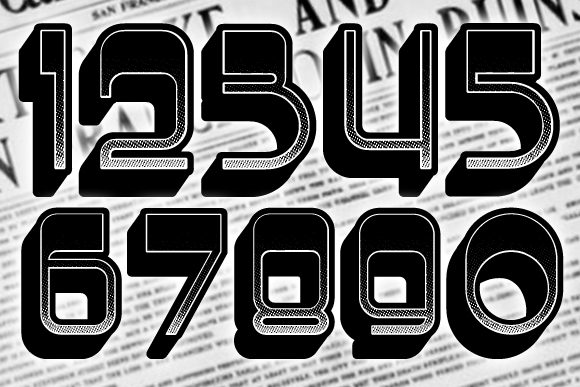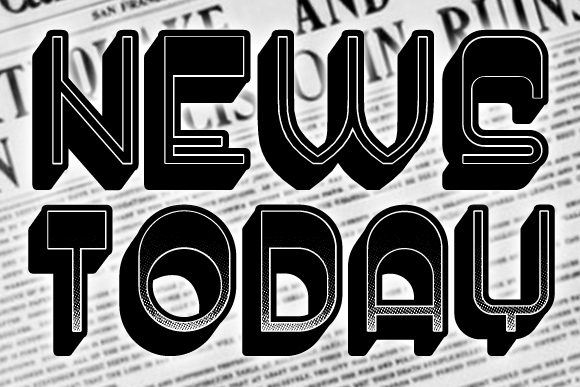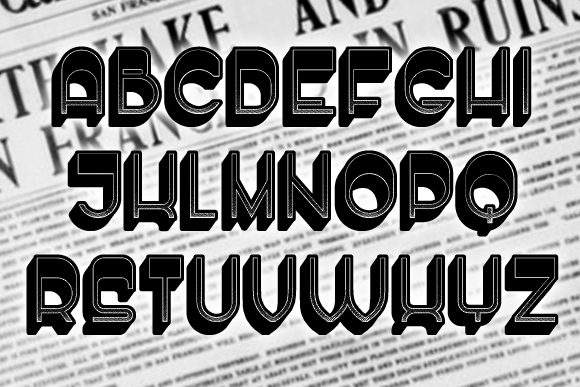
The Retro Charm of Enough Font: A Designer’s Delight
I’ll never forget the time I was working on a vintage-themed project for a client, and I just couldn’t find the right font to capture the essence of the ’50s and ’60s. I scoured the internet, tried out countless fonts, but nothing seemed quite right. That was until I stumbled upon the Enough Font family. It was like a breath of fresh air – the perfect blend of retro charm and modern versatility.
A Honest Review: The Good and the Great
Here’s what I love about Enough Font:
- ✨ Distinctive retro look that’s perfect for evoking the iconic aesthetics of the ’50s and ’60s
- ✅ Great for both headlines and body text
- ✨ Beautifully crafted with attention to detail
And, like any font, it’s not without its quirks:
- 🤔 Some users might find the font a bit too condensed for certain design applications
- ⚠️ Limited availability of certain special characters
The Story Behind Enough Font
Enough Font was designed with the goal of capturing the essence of retro typography. The designer, inspired by the iconic fonts of the ’50s and ’60s, set out to create a font that would evoke a sense of nostalgia and playfulness. The result is a font that’s both vintage and modern, perfect for designers looking to add a touch of retro charm to their work.
| Font Name | Enough Font |
| Author | vladimirnikolic |
| What makes Enough Font unique? | Enough Font’s distinctive retro look and highly legible design make it a standout. |
| Is Enough Font suitable for body text? | Yes, Enough Font is highly legible and can be used for both headlines and body text. |